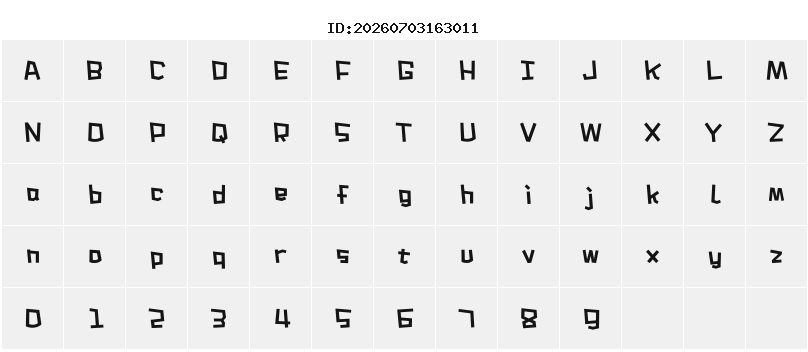
444-上首马克手绘体 Preview
• Font Name: 444-上首马克手绘体
• Font ID: 444-SSMaKeShouHuiTi:Version 4.00
• Full Font Name: 444-上首马克手绘体
• Version: Version 4.00 May 14, 2026
• PostScript Name: 444-SSMaKeShouHuiTi
• Character Count: 7603
• Manufacturer: 上首造字
About 444-上首马克手绘体.ttf
444-上首马克手绘体.ttf is a modern, elegant sans-serif font designed for ultimate readability and visual harmony. Perfect for branding, headlines, web design, and print materials.